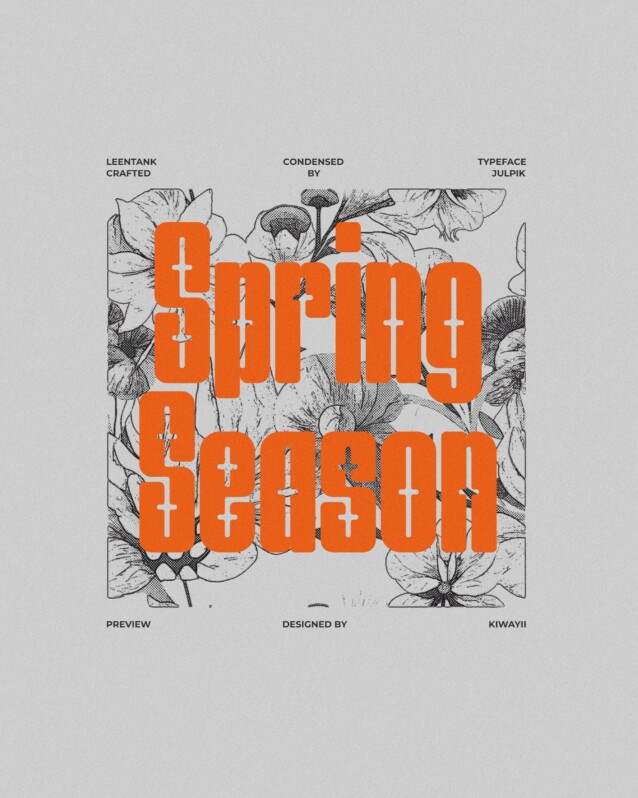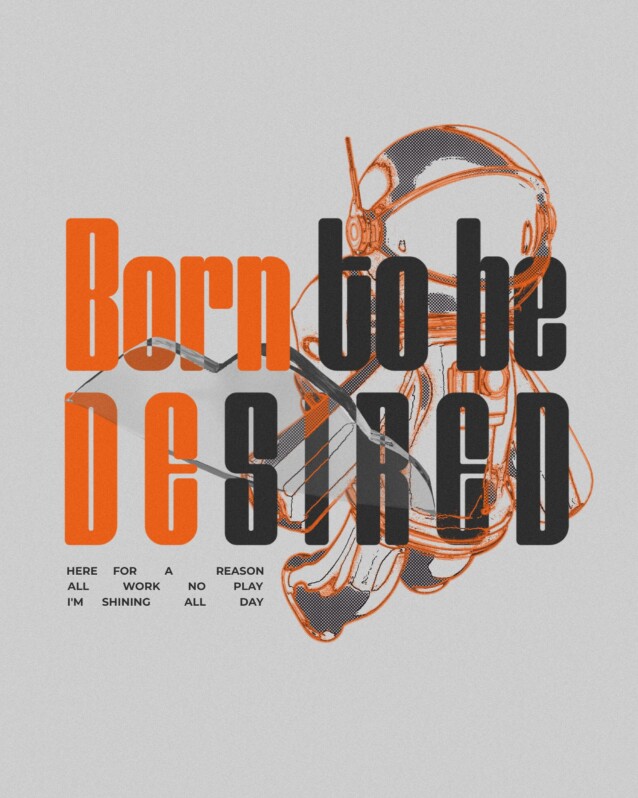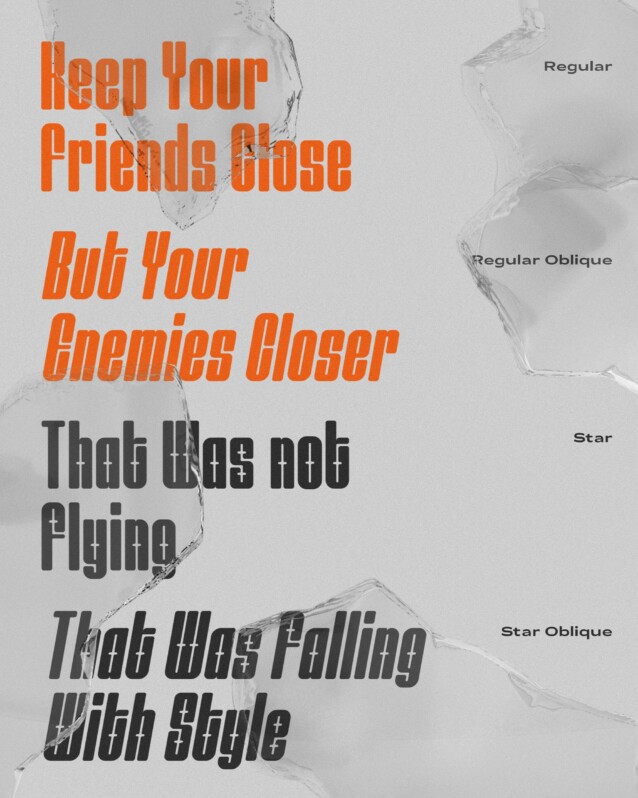
Leentank Condensed Font Family
Leentank Condensed Font
Leentank Condensed Font is a sleek and versatile display font family that combines modern geometry with a retro-cool vibe. This product includes 4 styles. Leentank Condensed is perfect for creating titles and logotypes with its unique characters.